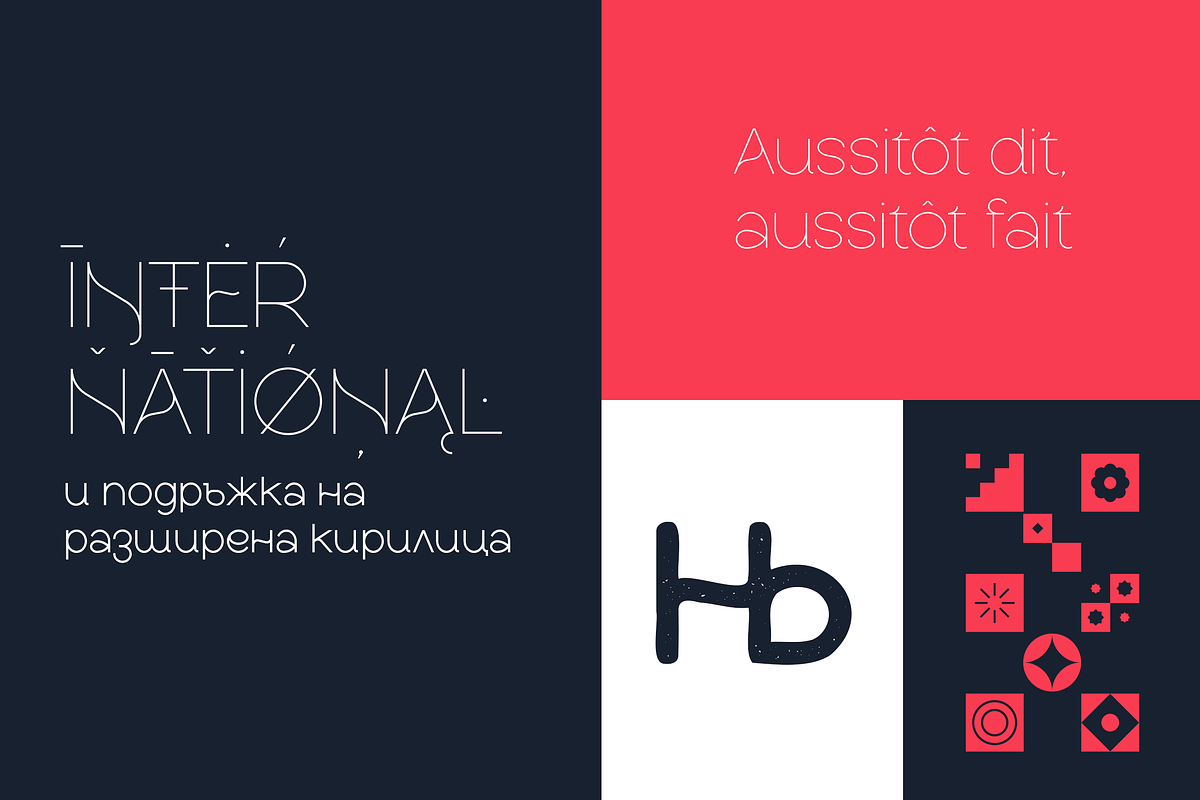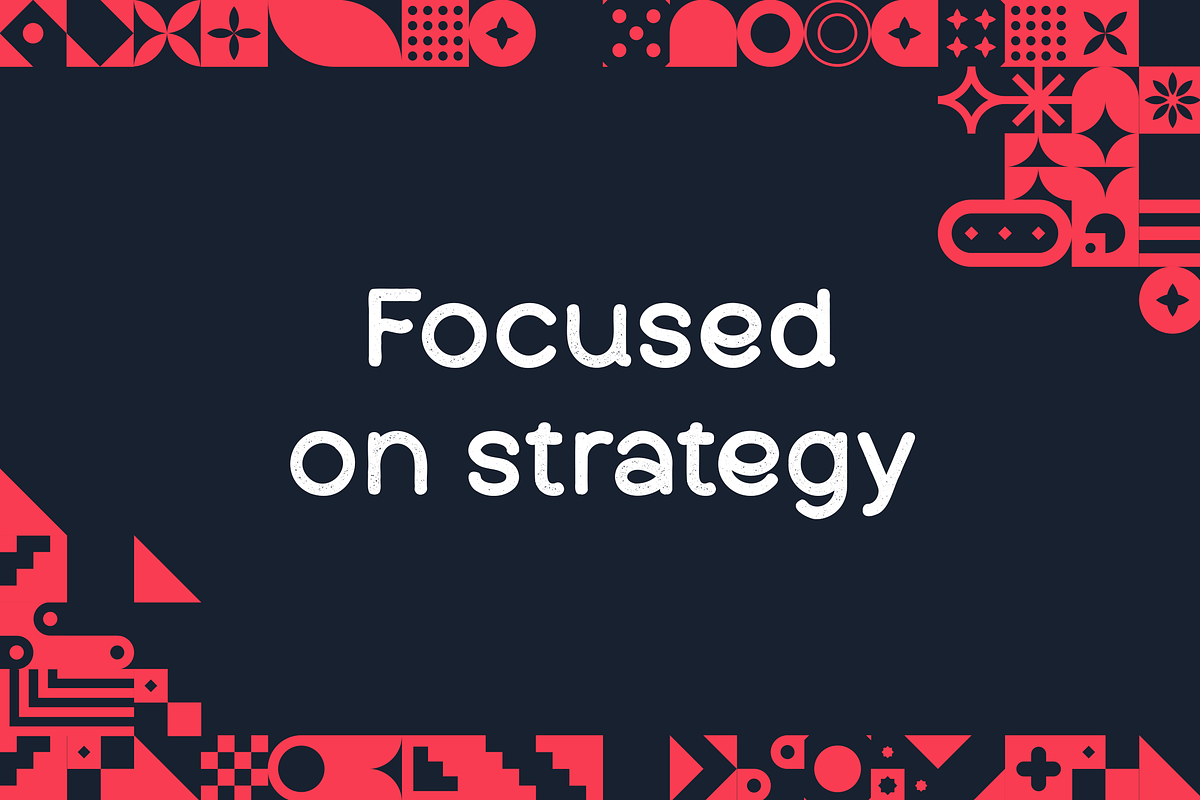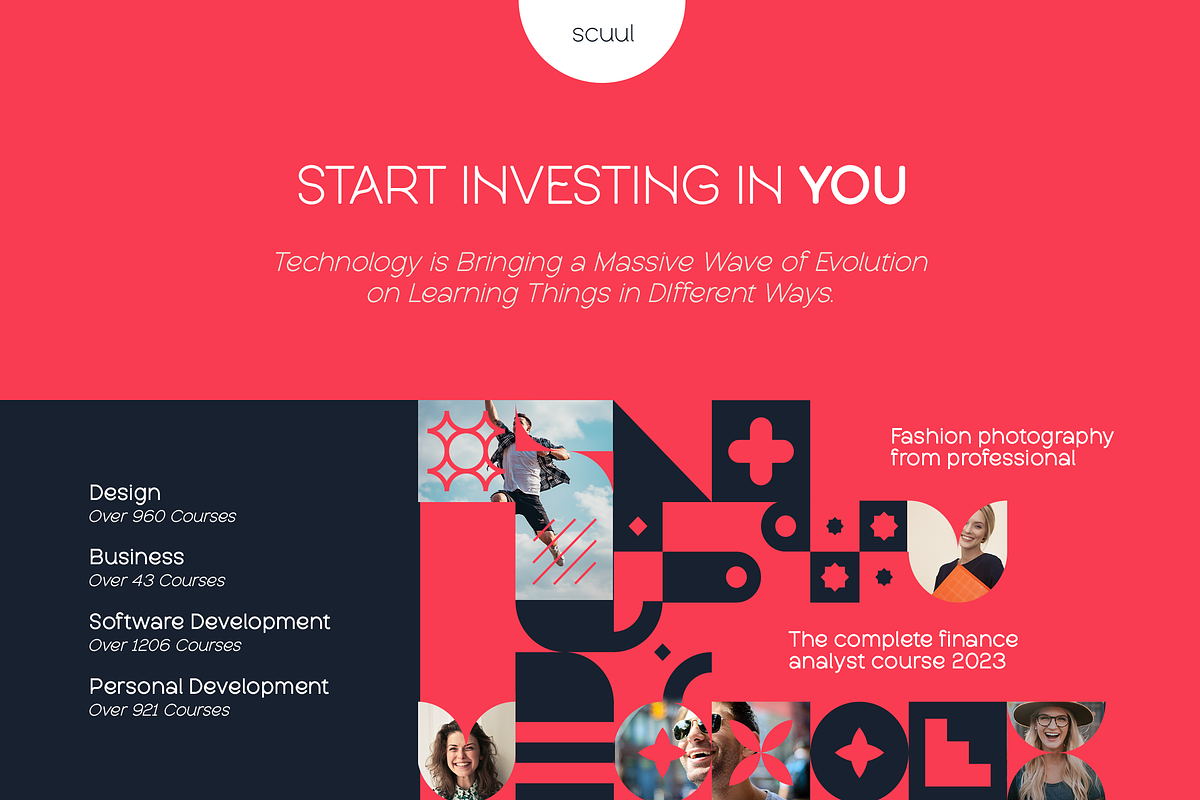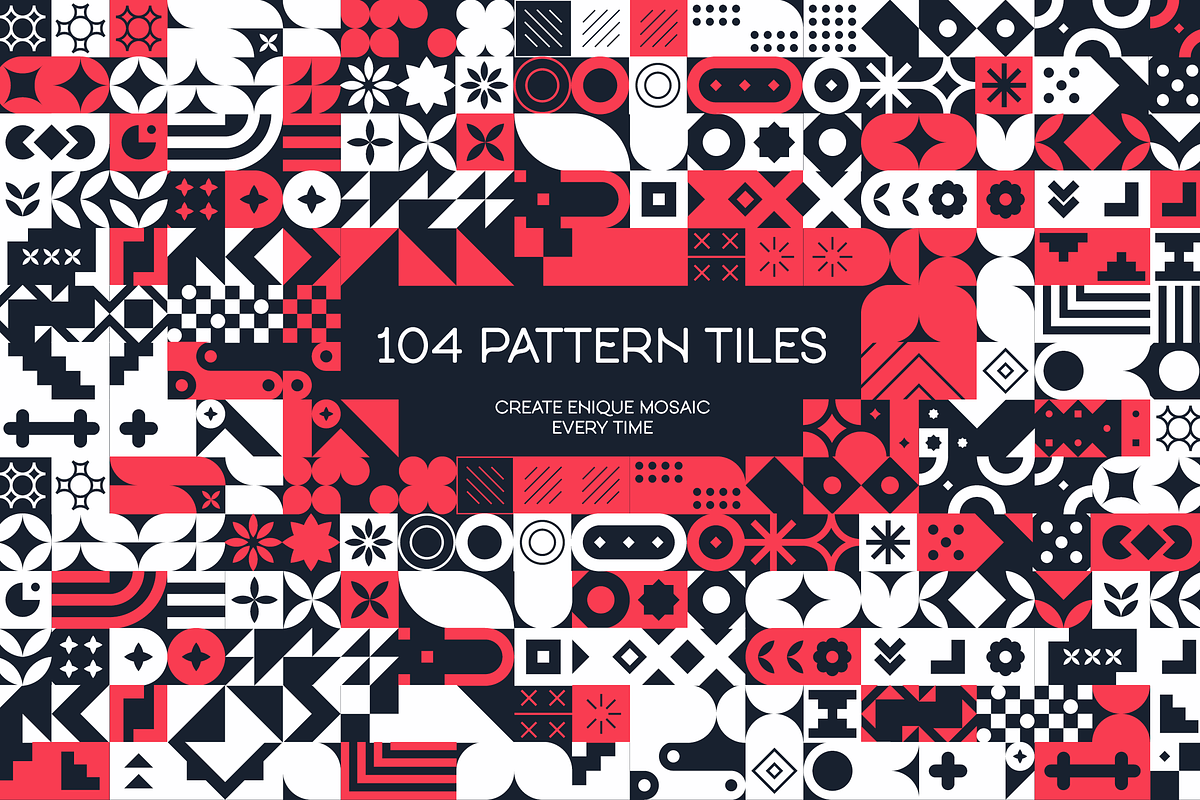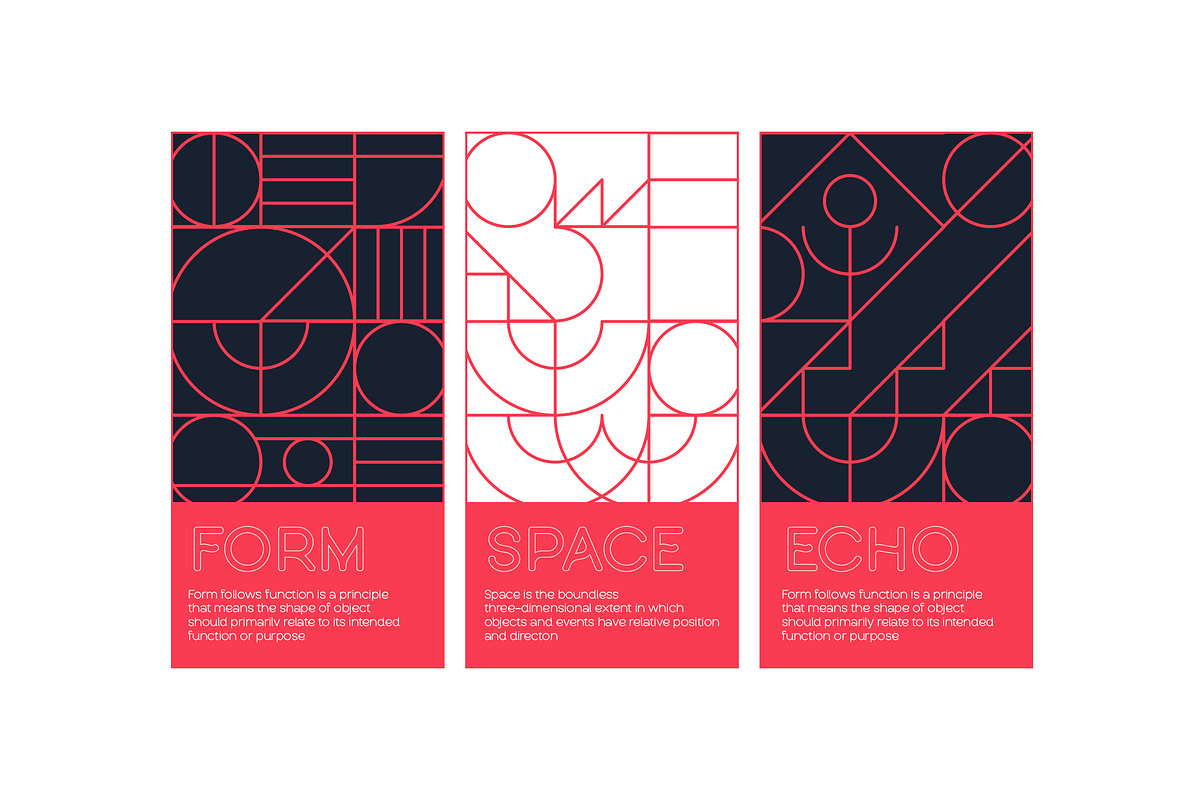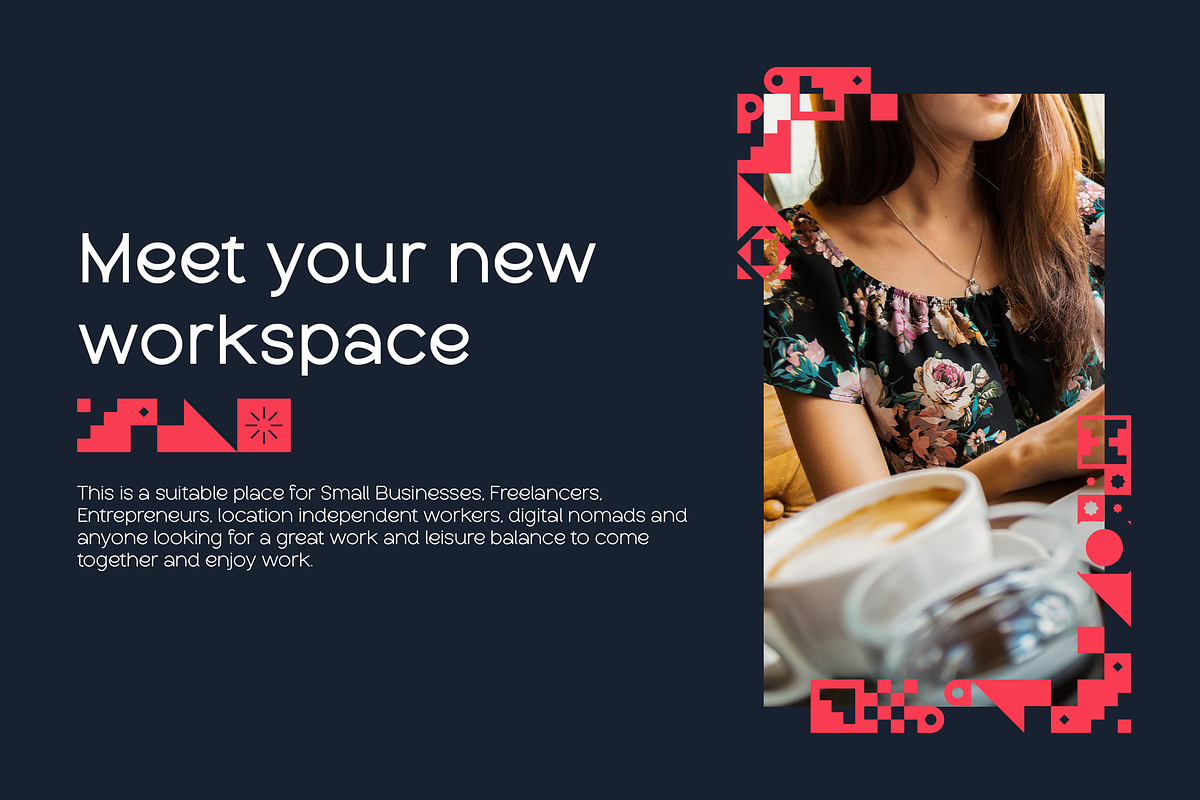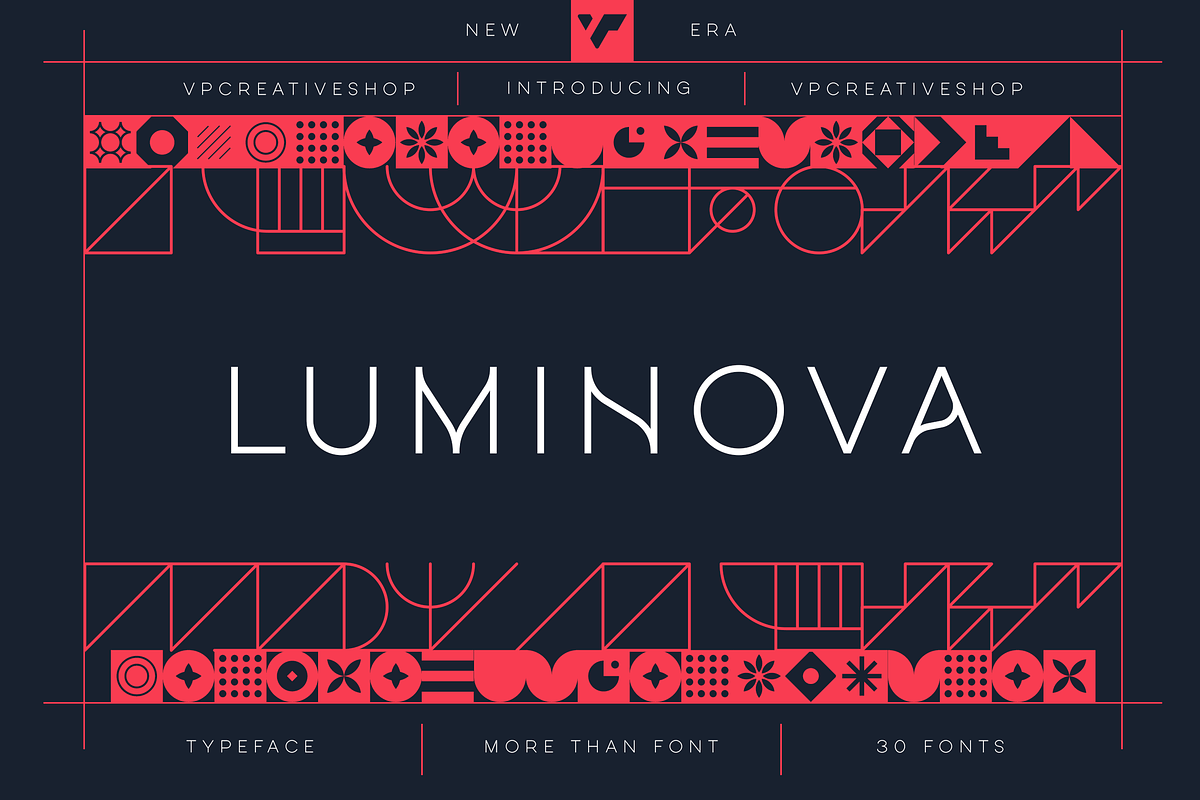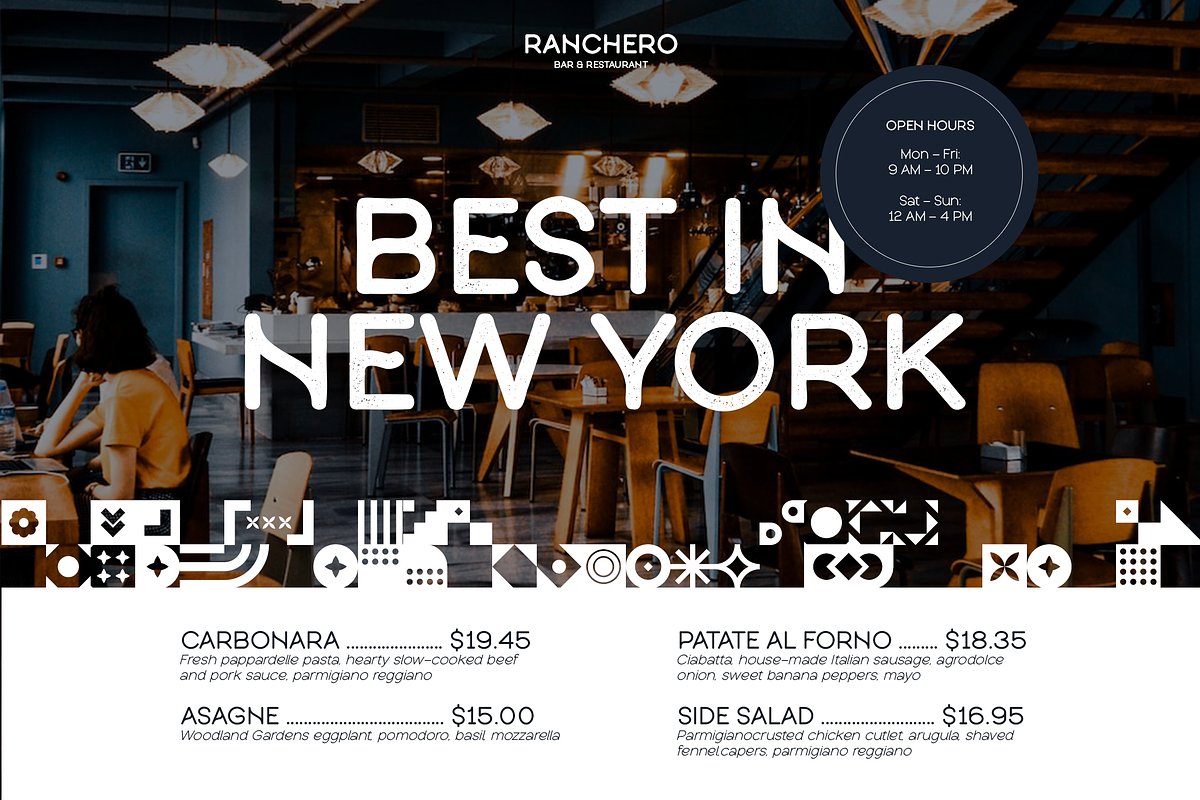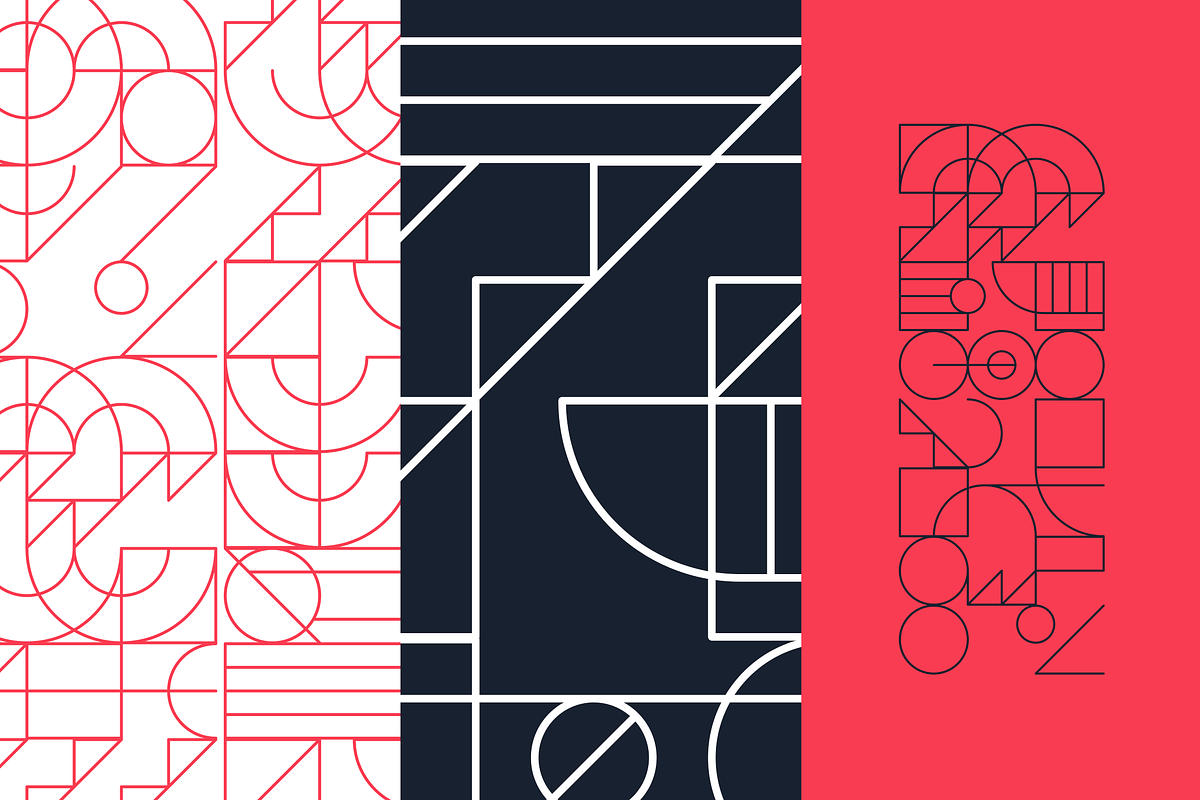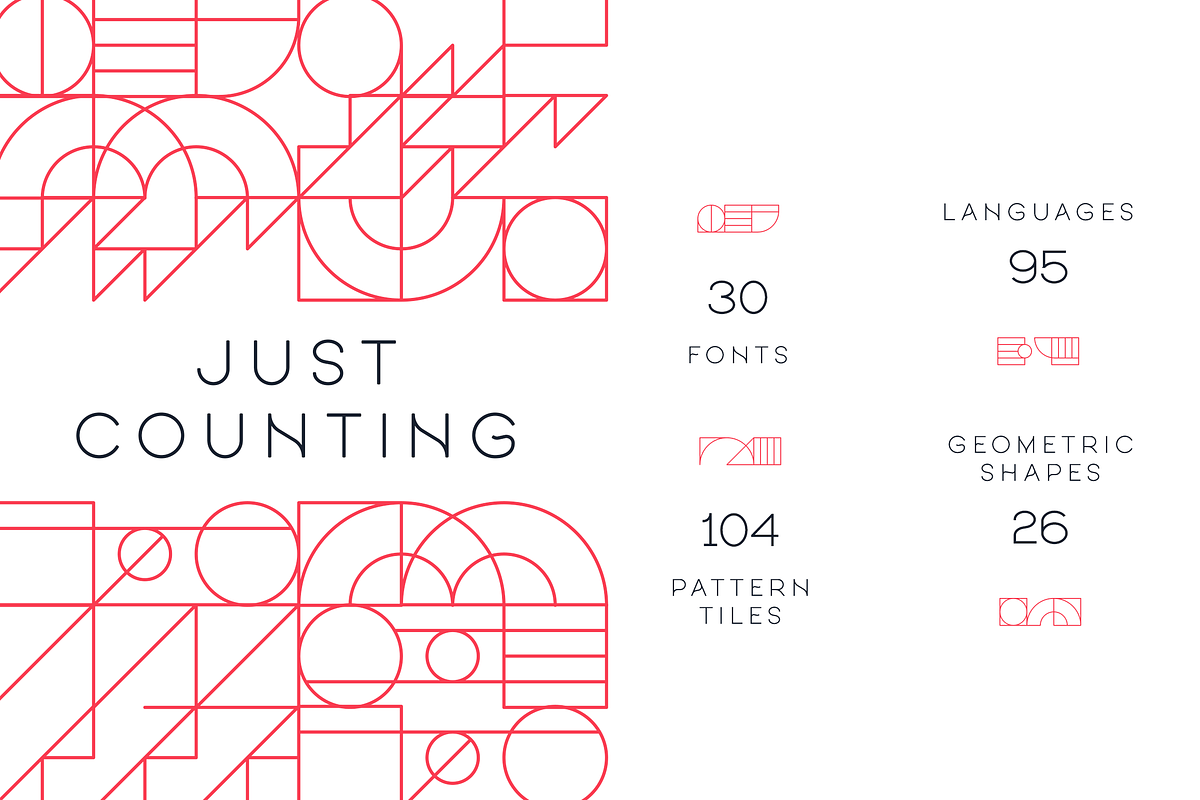
Luminova sans serif - 30 fonts
Introducing Luminova: Your Creative Toolkit in 30 Fonts!
Luminova is more than just a typeface; it's a versatile collection of 30 fonts designed to light up your creative projects. With its sleek and modern sans serif design, Luminova brings a touch of elegance and professionalism to any project you're working on.
In this comprehensive set, you'll find a variety of styles to suit every mood and message. The Regular and Italics fonts provide a classic and timeless appearance, perfect for conveying information clearly and effectively. If you're looking to infuse a hint of character and uniqueness, the Rust version adds a touch of vintage charm, while the Soft version brings a gentle and approachable feel.
But what truly sets Luminova apart are the two pattern fonts that are truly the stars of the show. These pattern fonts allow you to create captivating mosaics that are unique every time. Imagine the endless possibilities for eye-catching designs, whether it's for branding, posters, or any other project where you want to make a lasting impression.
Luminova isn't limited by language barriers either. With support for an impressive 95 languages, including Cyrillic script, you can confidently communicate your message to audiences around the world.
So whether you're a designer, a marketer, a content creator, or anyone with a passion for visual communication, Luminova is your go-to companion. With its extensive font options and dynamic pattern fonts, your creativity knows no bounds. Illuminate your projects with Luminova and let your imagination shine!